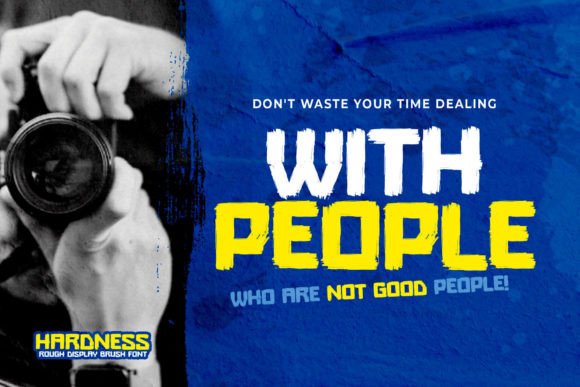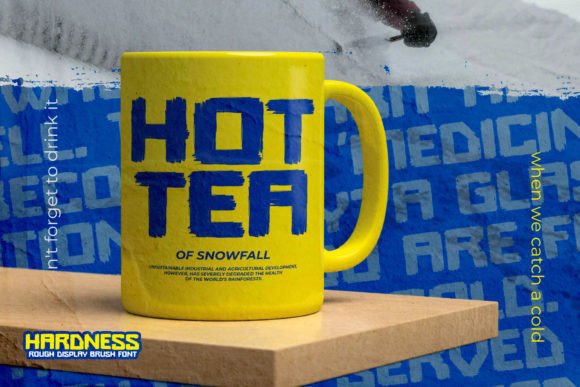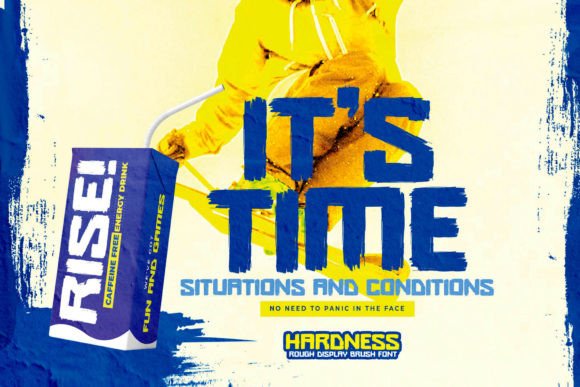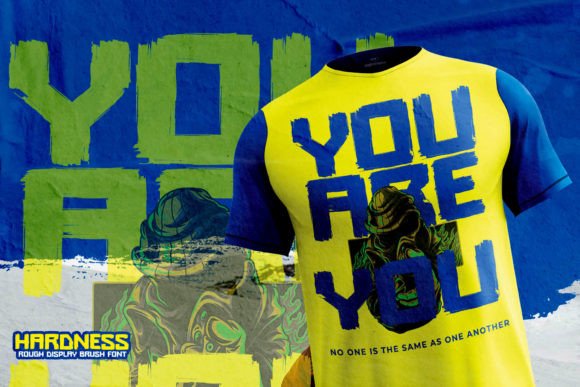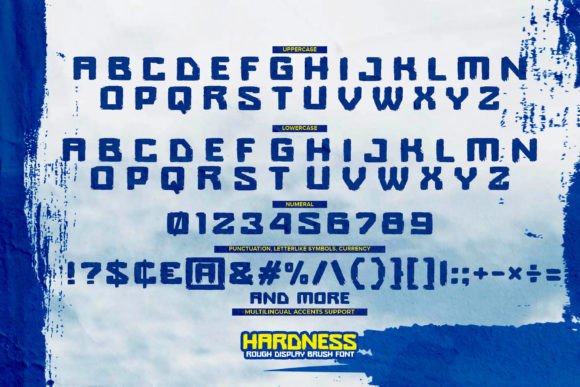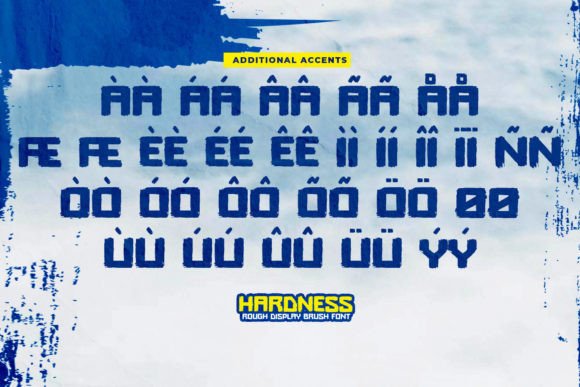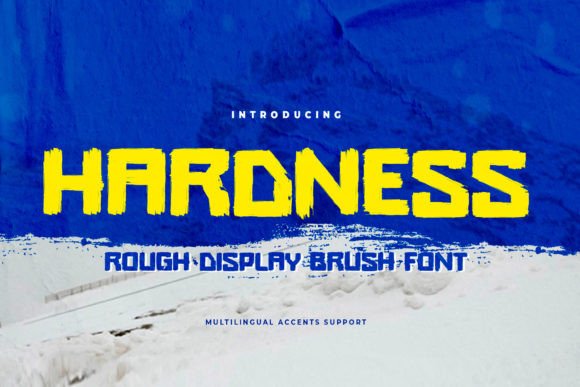
Introducing Hardness Font: Elevate Your Designs with a Natural and Classy Touch
Are you on the hunt for a font that can add a touch of natural elegance and drama to your designs? Look no further than Hardness Font, a stunning rough display brush font that is sure to take your creative projects to the next level. With its unique blend of clear, dramatic movement and charming, authentic characters, Hardness is the perfect choice for designers and crafters looking to add a relaxed, yet bold typography to their work.
What Makes Hardness Font Stand Out?
Hardness Font boasts a distinctive natural and classy style that sets it apart from other fonts. Its rough display brush texture gives it an authentic, hand-crafted feel that is perfect for designs that require a personal touch. Whether you’re working on a logo, printed quote, invitation, card, or product packaging, Hardness Font is sure to add a touch of sophistication and elegance to your project.
Endless Design Possibilities with Hardness Font
One of the best things about Hardness Font is its versatility. With its bold typography and natural style, it’s perfect for a wide range of design projects, including:
- Logos: Create a lasting impression with a custom logo that features Hardness Font’s unique texture and style.
- Printed Quotes: Add a touch of drama and elegance to your inspirational quotes with Hardness Font.
- Invitations: Make your invitations stand out with Hardness Font’s charming and authentic characters.
- Cards: Create beautiful greeting cards that feature Hardness Font’s natural and classy style.
- Product Packaging: Elevate your product packaging with Hardness Font’s bold typography and unique texture.
- Headers: Add a touch of sophistication to your headers with Hardness Font’s clear and dramatic movement.
- Logotypes: Create a custom logotype that features Hardness Font’s distinctive style.
- Letterheads: Add a professional touch to your letterheads with Hardness Font.
- Posters: Create eye-catching posters that feature Hardness Font’s bold typography and natural style.
- Watermark on Photography: Add a touch of elegance to your photographs with Hardness Font’s subtle texture.
- Advertisements: Create stunning advertisements that feature Hardness Font’s unique style and bold typography.
- Product Designs: Elevate your product designs with Hardness Font’s natural and classy style.
- Stationery: Create beautiful stationery that features Hardness Font’s charming and authentic characters.
- Wedding Designs: Make your wedding designs stand out with Hardness Font’s elegant and sophisticated style.
- Labels: Create custom labels that feature Hardness Font’s bold typography and unique texture.
- Special Events: Use Hardness Font to create stunning designs for special events, such as conferences, festivals, and more.
Why Choose Hardness Font?
So why choose Hardness Font for your next design project? Here are just a few reasons:
- Unique Texture: Hardness Font features a unique rough display brush texture that gives it an authentic, hand-crafted feel.
- Natural and Classy Style: Hardness Font boasts a natural and classy style that is perfect for designs that require a personal touch.
- Bold Typography: Hardness Font features bold typography that is sure to make your designs stand out.
- Charming and Authentic Characters: Hardness Font’s characters are charming, authentic, and relaxed, adding a natural look to your text.
In conclusion, Hardness Font is a stunning rough display brush font that is sure to elevate your designs with its natural and classy style. With its unique texture, bold typography, and charming characters, Hardness Font is perfect for a wide range of design projects. Whether you’re a designer, crafter, or DIY enthusiast, Hardness Font is a must-have font that is sure to take your creative projects to the next level.